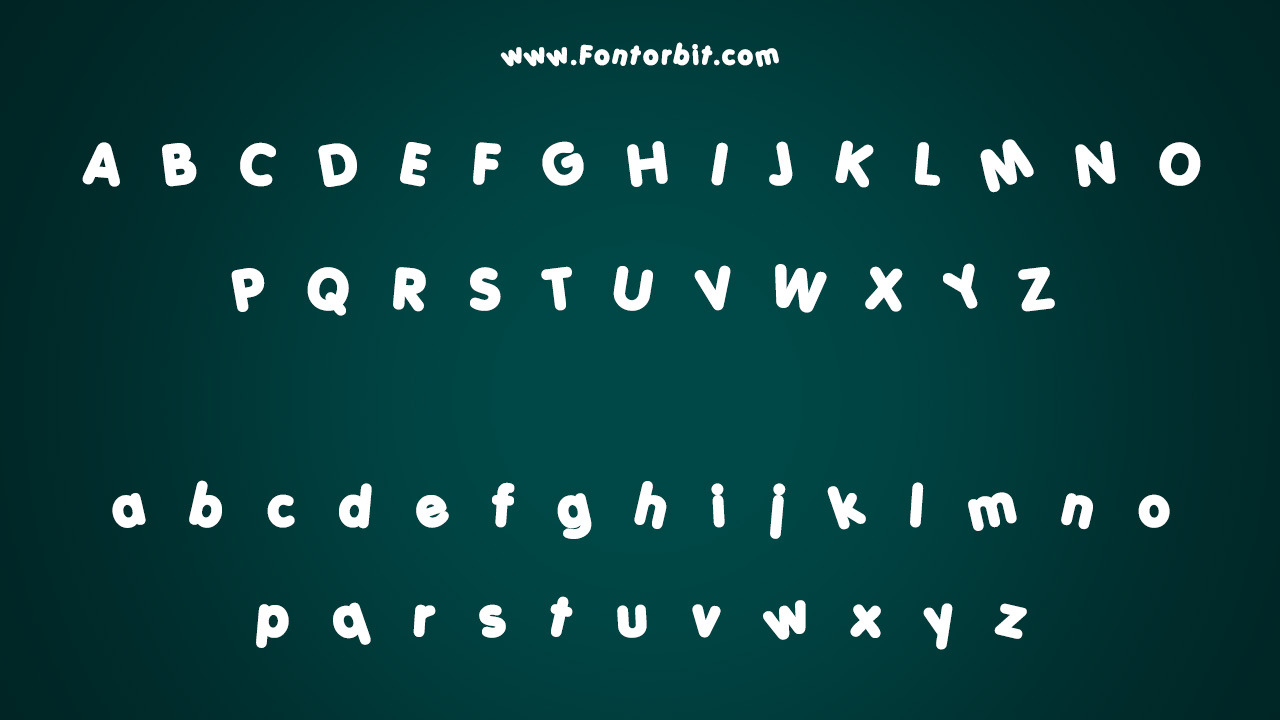
Porky’s Font, designed by Fontalicious, is a regular weight typeface in the Porky’s family. It falls under the category of fancy typefaces and is copyrighted ©1998 by Font‐a‐licious Fonts.
Porky is a distinctive fancy typeface characterized by its rounded edges and playful, leaning characters. It brings a whimsical and unique touch to any design project.
Types In The Porky’s Font Family
- Porky’s Regular
- Porky’s Heavy
The Porky’s Font Found In Use
- Titles
- Product Packaging
- Event Signage
- Creative Projects
Porky’s Font is ideal for a range of design contexts, from playful branding and social media graphics to distinctive posters and event signage. Its unique style makes it perfect for creative and whimsical projects.
Porky’s Font, created by Fontalicious, offers a unique and playful design perfect for creative and whimsical projects. Available in TTF format, it is free for personal use but requires a license for commercial applications. Its distinctive character makes it a valuable addition to any designer’s toolkit.
1.Who Is The Owner Of Porky’s Font?
The Porky’s Font is owned by Fontalicious.
2.What Is The Type Of Porky’s Font?
Porky’s Font is categorized as a fancy typeface with playful, rounded characters.
3.Where Can You Use Porky’s Font?
Porky’s Font can be used for titles, posters, branding, social media graphics, product packaging, and creative projects.
4.What Fonts Are Similar To Porky’s?
Similar fonts include Bubblegum Sans, Comic Sans MS, Giddyup Std, Kool Beans, and Chalkboard SE.
5.What Are The Benefits Of Using The Porky’s Font In Design?
It adds a fun, unique element to designs and works well for creative and playful applications.
6.What Is The Significance Of The Porky’s Font In Design?
It provides a distinctive, whimsical style for projects requiring a playful, rounded typeface.